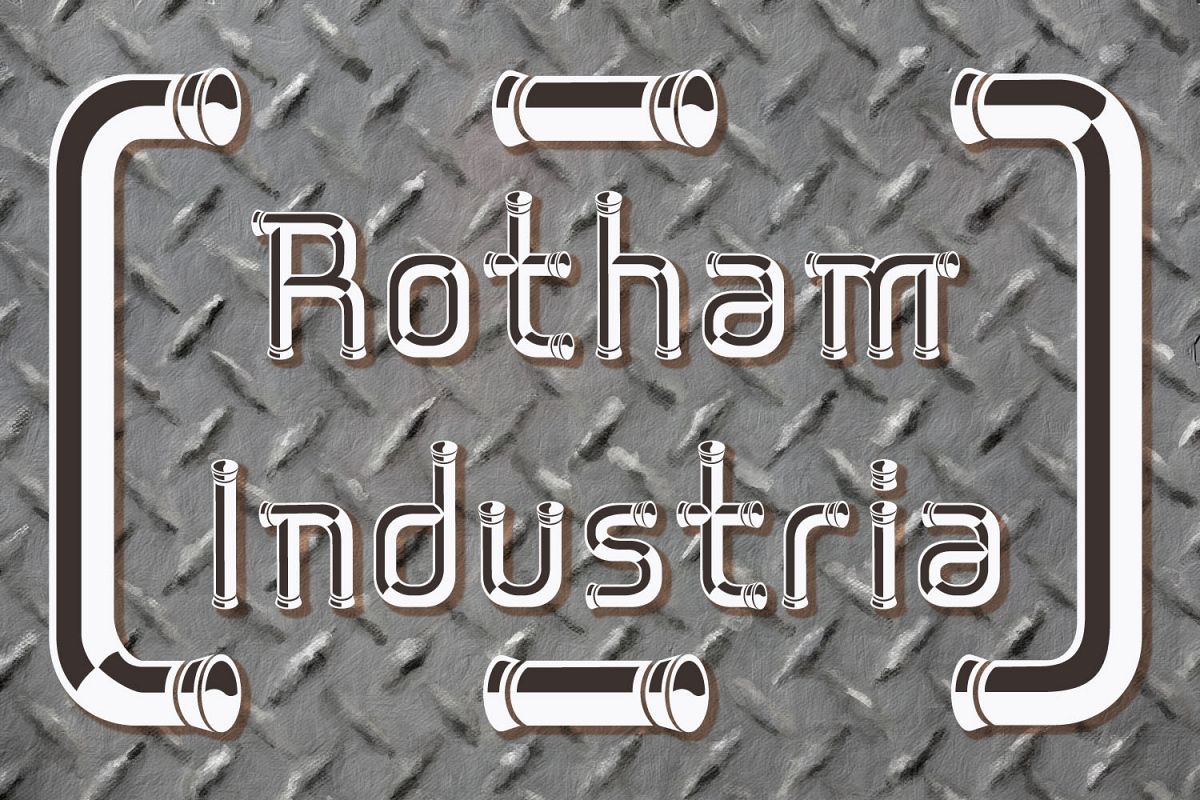
Rotham Industria
Rotham Industria. Stylised lettering for industrial flavoured projects.  Imagine, if you will letters shaped from metal tube, or perhaps from a solid rod, or perhaps made from brass handrails?  You get the idea. A stylised and fun typeface for those occasions where you want to suggest an engineering influence.